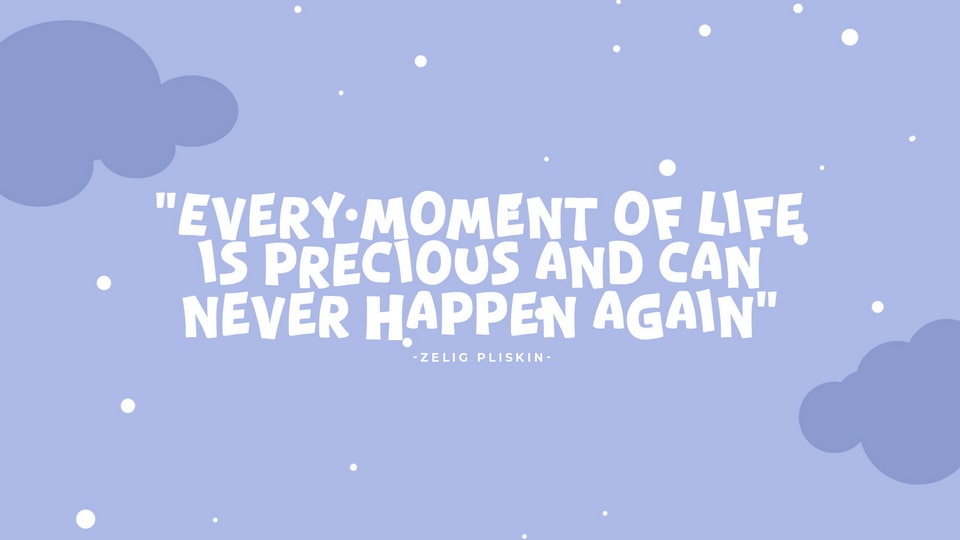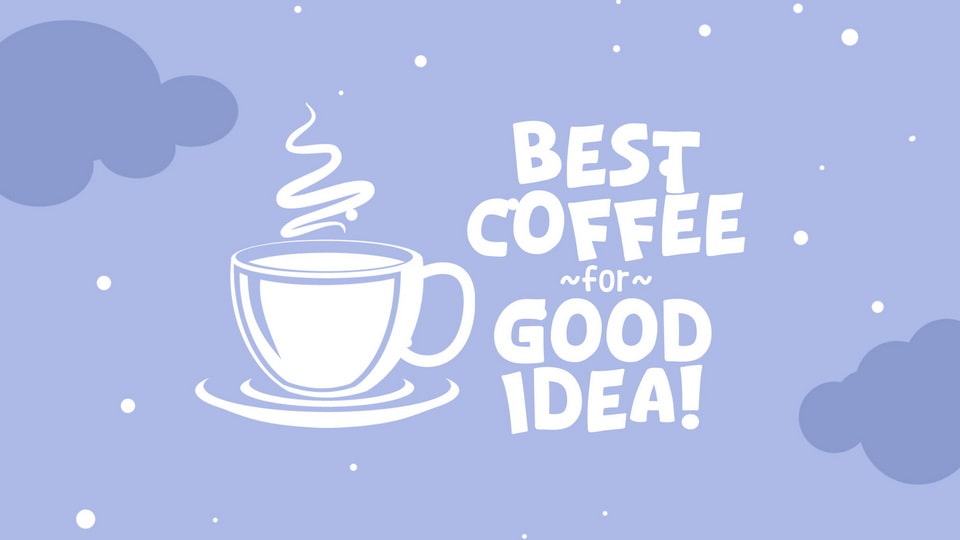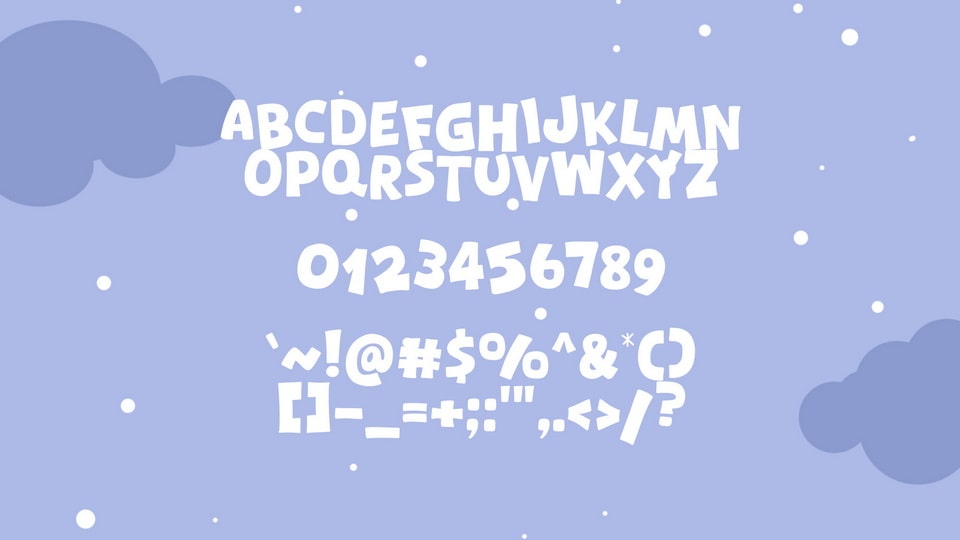
Cracker Winter is a playful hand-lettered font that brings the charm of cartooning to life. It is carefully crafted with a whimsical touch, capturing the essence of hand-drawn cartoons in every stroke.
This font is perfect for projects that demand a lighthearted and fun vibe. Cracker Winter is ideal for comic strips, children’s book illustrations, or any design where you want to infuse a sense of playfulness and creativity.